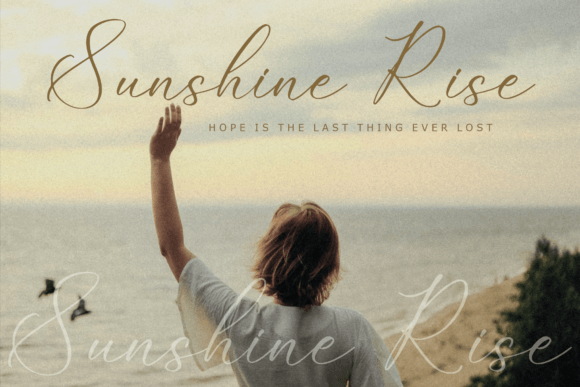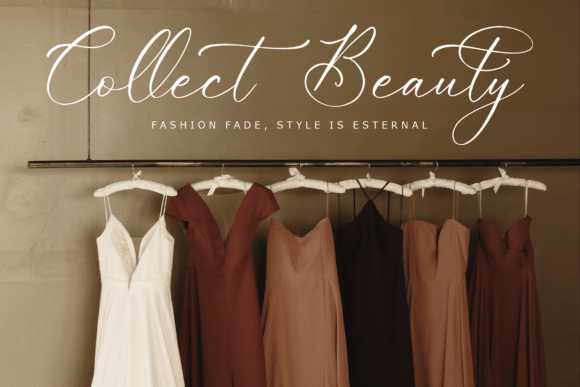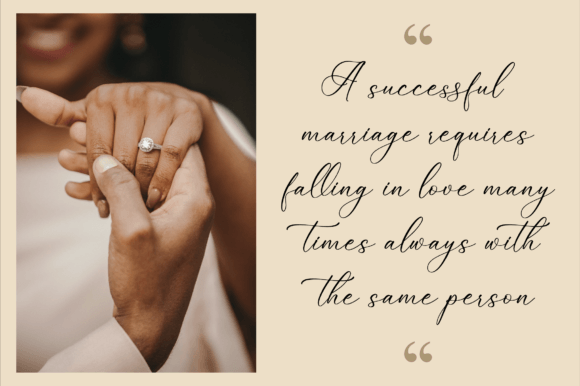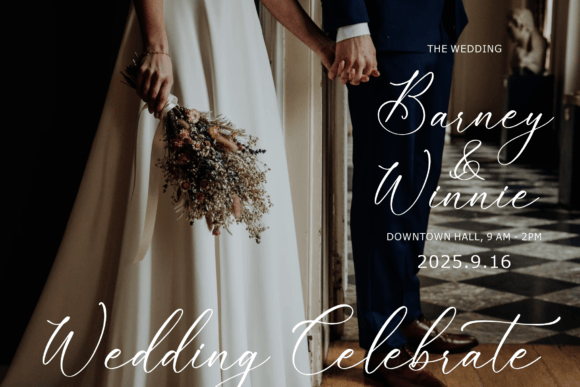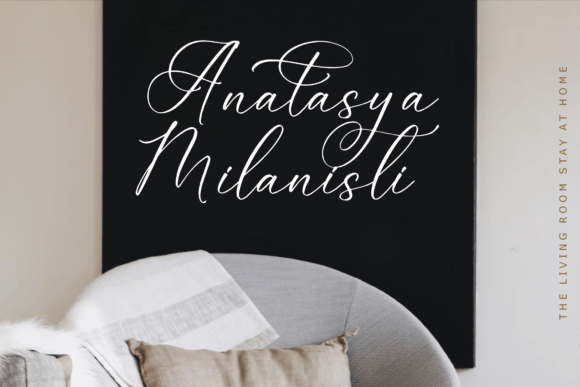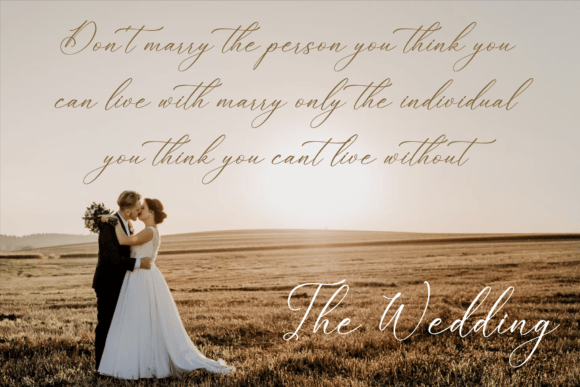
Discover the Elegance of Alnetsia Montenela Font
Have you ever been in the middle of a design project, and suddenly, you’re stuck on finding the perfect font? I recall a recent experience where I was working on a luxury brand logo, and my usual go-to fonts just weren’t cutting it. That’s when I stumbled upon the Alnetsia Montenela font, and it completely transformed my design. In this article, we’ll dive into the world of this stunning script font and explore its features, uses, and alternatives.
A Personal Review of Alnetsia Montenela Font
- ✨ Unique and modern script style that adds a touch of luxury to any design
- ✅ Elegant and sophisticated, perfect for high-end branding and designs
- 💫 Highly versatile, suitable for various design projects, from logos to magazine titles
- 🎨 Beautifully crafted, with intricate details that make it stand out
While Alnetsia Montenela is an exceptional font, there are a few minor things to consider:
The Backstory of Alnetsia Montenela Font
While the actual story behind Alnetsia Montenela’s creation is scarce, it’s said that the font was designed by a team of typographers who aimed to create a modern script font that exudes luxury and sophistication. Inspired by classic calligraphy and modern digital design, Alnetsia Montenela was crafted to be a versatile and elegant font for various design applications.
| What is Alnetsia Montenela font best used for? | Alnetsia Montenela is perfect for luxury branding, logos, titles, and designs that require an elegant and sophisticated touch. |
In conclusion, Alnetsia Montenela is a stunning script font that can elevate your designs to new heights. With its unique style, modern look, and versatility, it’s perfect for designers, crafters, and creative hobbyists looking to add a touch of luxury to their work.
| Author | Storytype Studio |